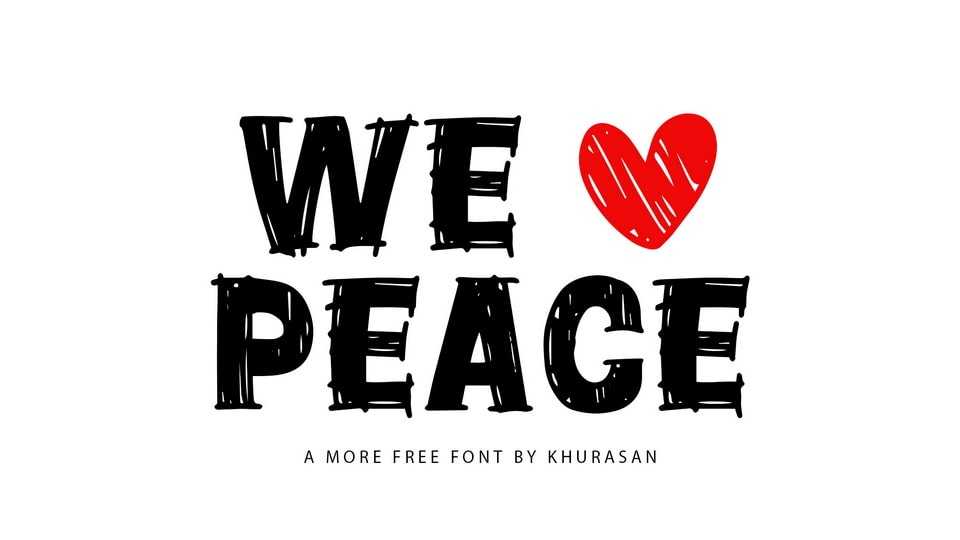
Download We Love Peace font, a hand-drawn typeface with a unique hatched texture that adds a touch of artistic flair to each character. We Love Peace font is perfect for projects that demand a handmade touch with a hint of creativity.